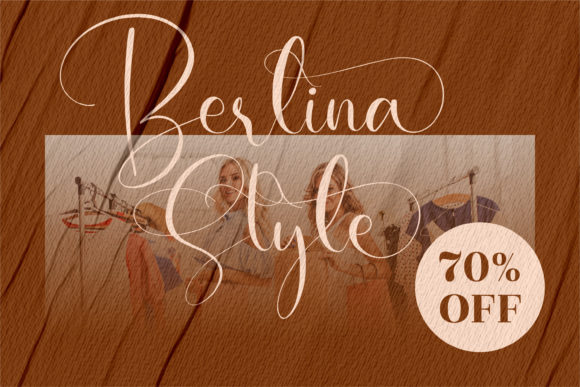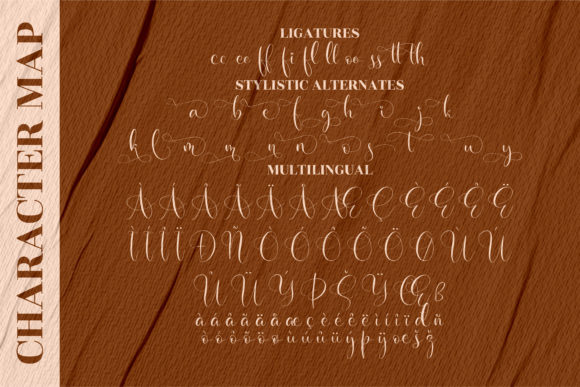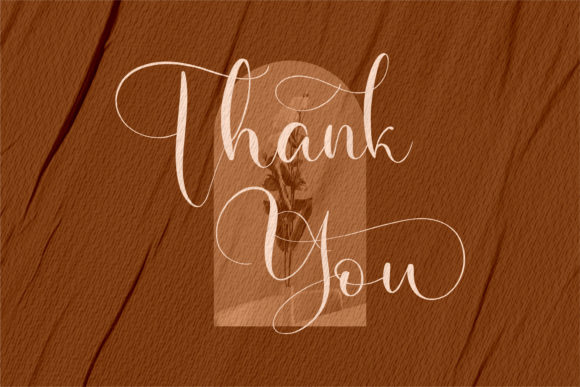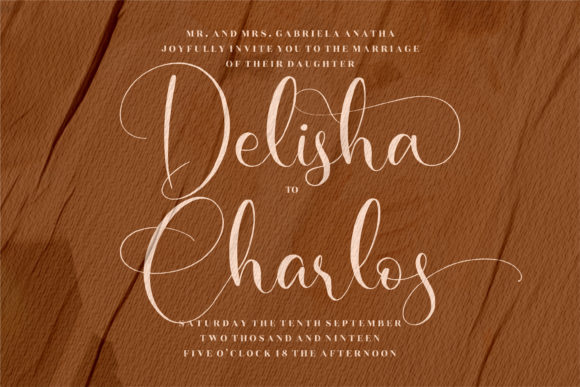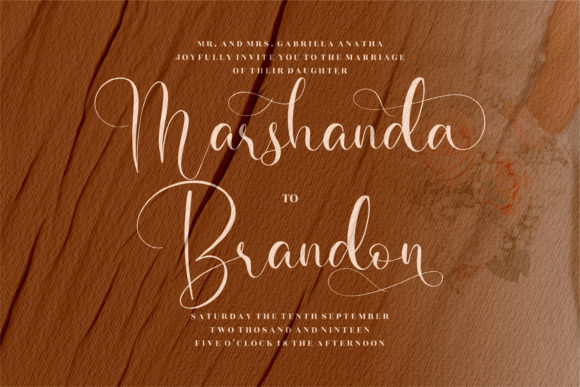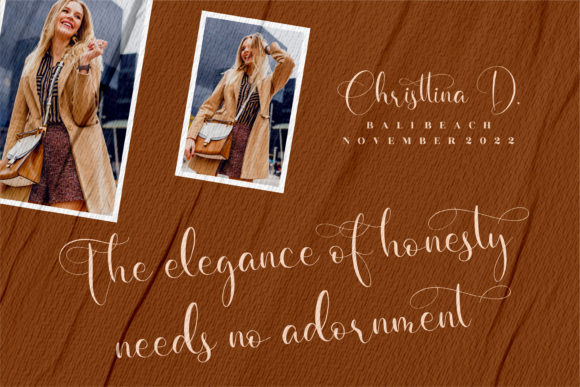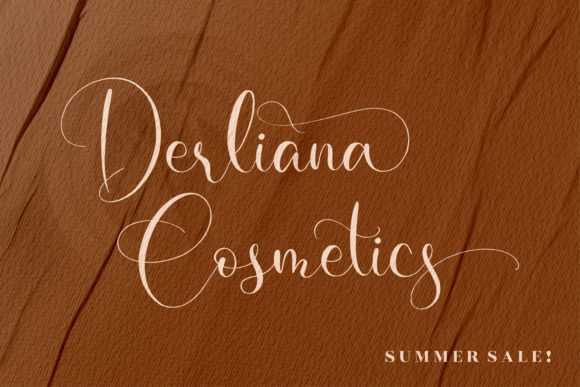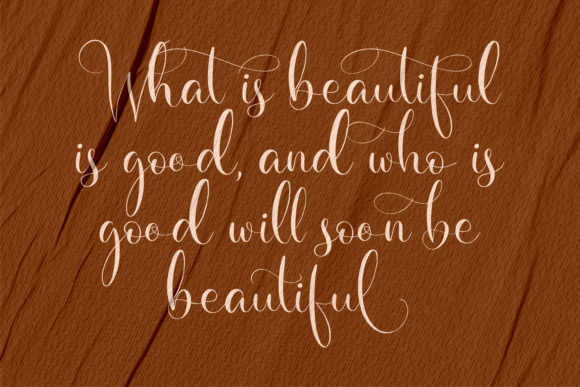
About Beslatty Font
Beslatty is a delicate, elegant and flowing handwritten font. It has beautiful and well balanced characters and as a result, it matches a wide pool of designs. Beslatty is PUA encoded which means you can access all of the glyphs and swashes with ease!Â